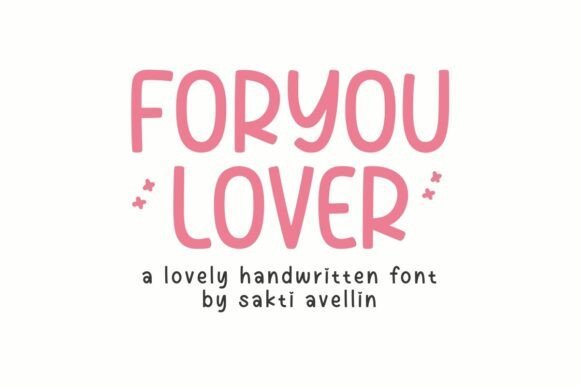
Unleash Your Creativity with Foryou Lover Font
Do you ever find yourself scribbling down quotes or lyrics in a journal, only to realize that the imperfect handwriting adds a certain charm to the words? That’s exactly the kind of magic that the Foryou Lover Font brings to your designs. This exquisitely authentic handwritten font is a masterclass in capturing the essence of romance and intimacy, making it the perfect choice for anyone who wants to add a touch of warmth to their creations.
As a designer, you know the value of a well-chosen font. Foryou Lover Font is more than just a stylish choice – it’s a way to connect with your audience on a deeper level. Whether you’re designing greeting cards, customizing tote bags, or creating quotes for social media, this font brings a level of authenticity that’s hard to replicate with more formal fonts.
Foryou Lover Font Key Features
- Font Family: Foryou Lover, a unique and stylish script font
- Unique Characteristics: Includes 500+ glyphs, including international characters and symbols, and a wide range of ligatures for a more natural look
Foryou Lover Font Review
I was really excited to dive into the Foryou Lover Font, as it promised to bring a playful and modern touch to any design project. Here’s my honest review.
- Unique design: Foryou Lover Font truly stands out with its quirky and fun personality, making it perfect for projects that need a bit of whimsy.
- High-quality glyphs: The font’s glyphs are well-designed and rendered, ensuring that the text looks crisp and clear on a variety of screens.
- Limited language support: Unfortunately, the font only supports a limited number of languages, which may be a drawback for projects that require a more global reach.
- No bold or italic variations: While the font is fun and playful, it’s a bit limited in terms of its stylistic variations, which may not be suitable for projects that require more emphasis or contrast.
Overall, I think Foryou Lover Font is a great choice for designers who want to add a bit of personality to their projects. While it may have some limitations, its unique design and high-quality glyphs make it a valuable addition to any design library.
The Foryou Lover Font is ideal for social media graphics, influencer branding, and trendy typography. Use it to add a touch of modernity to your designs and stand out from the crowd.